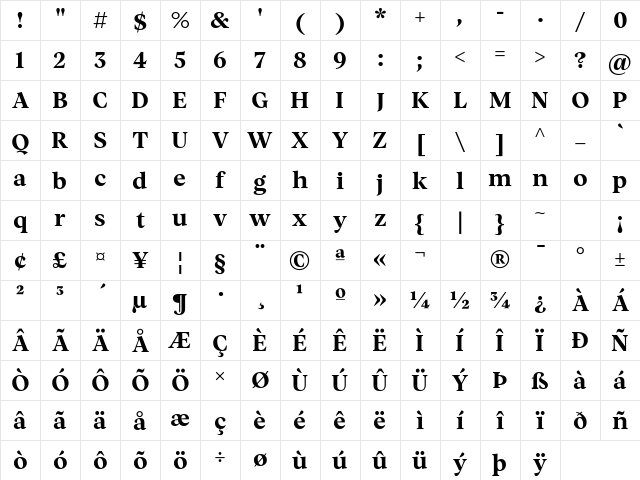
Vesterbro Bold Free Font
Vesterbro Bold
Foundry: BlackFoundry
Designer: Jeremie Hornus, Alisa Nowak, Ilya Naumoff
Vesterbro Family
Vesterbro Bold
Design Context for Vesterbro
Vesterbro is a composed and adaptable typeface that performs quietly and consistently across a wide range of design contexts. Its bold stroke weight gives it real presence on the page.